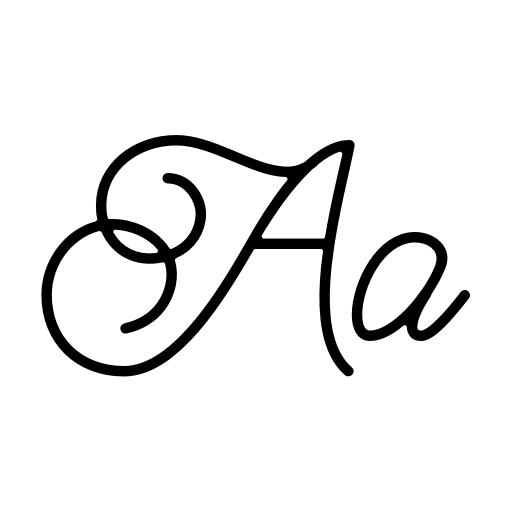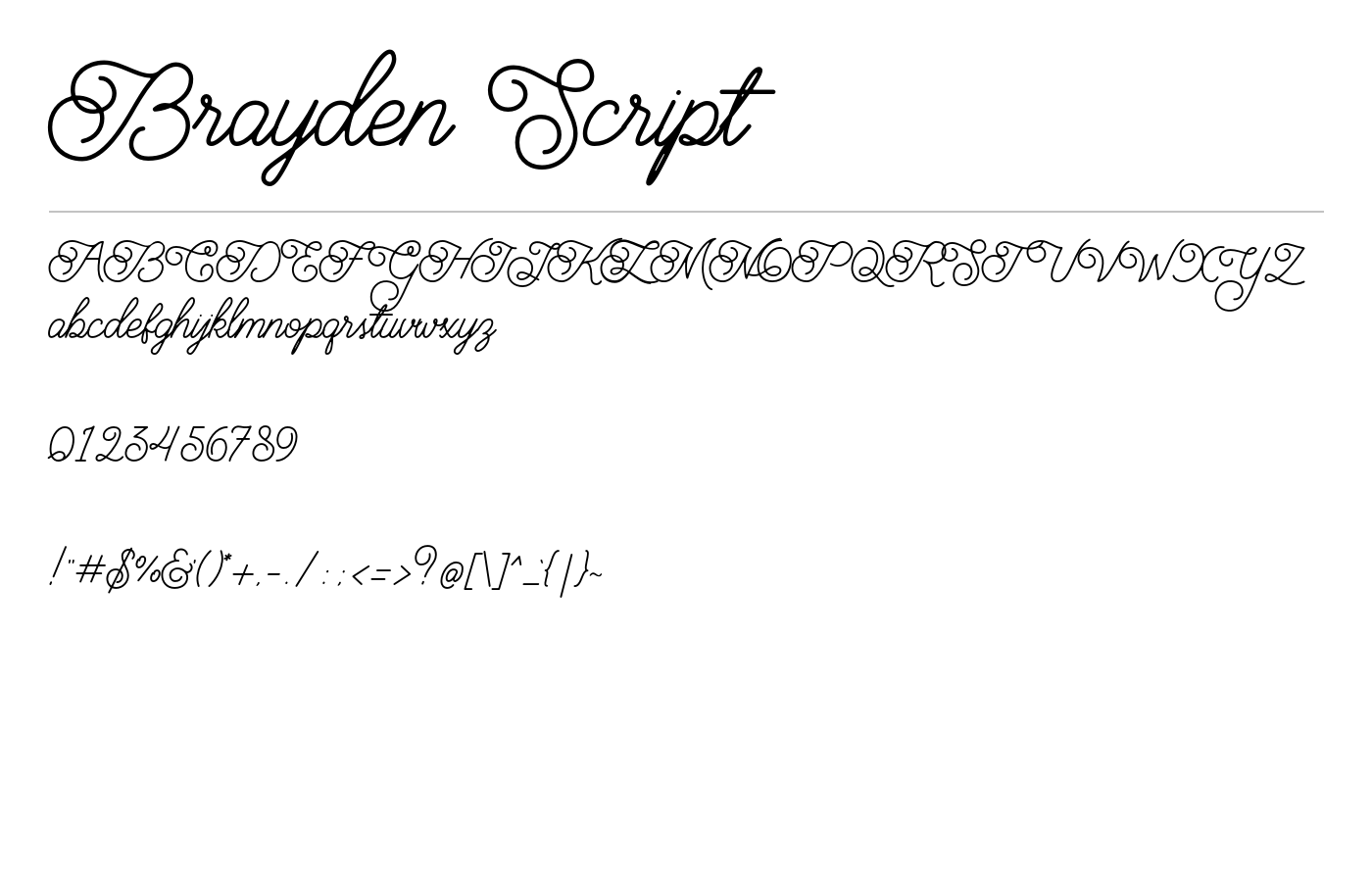
Brayden Script is an elegant, lightweight script font characterized by its delicate, flowing strokes and intricate swashes, especially in the uppercase letters. Its refined, handwritten style conveys a sense of sophistication and romance, making it perfect for wedding invitations, luxury branding, and stylish editorial design. This font shines in contexts where a graceful and feminine touch is desired, enhancing logos, packaging, and headlines with its airy and ornamental charm.
Brayden Script Font
About Brayden Script Font